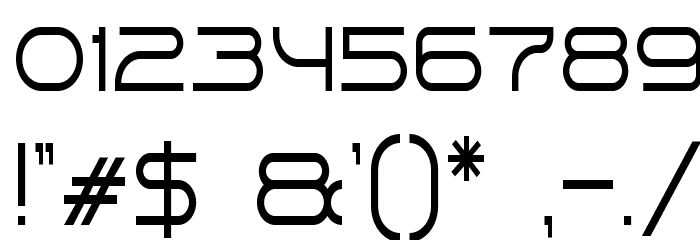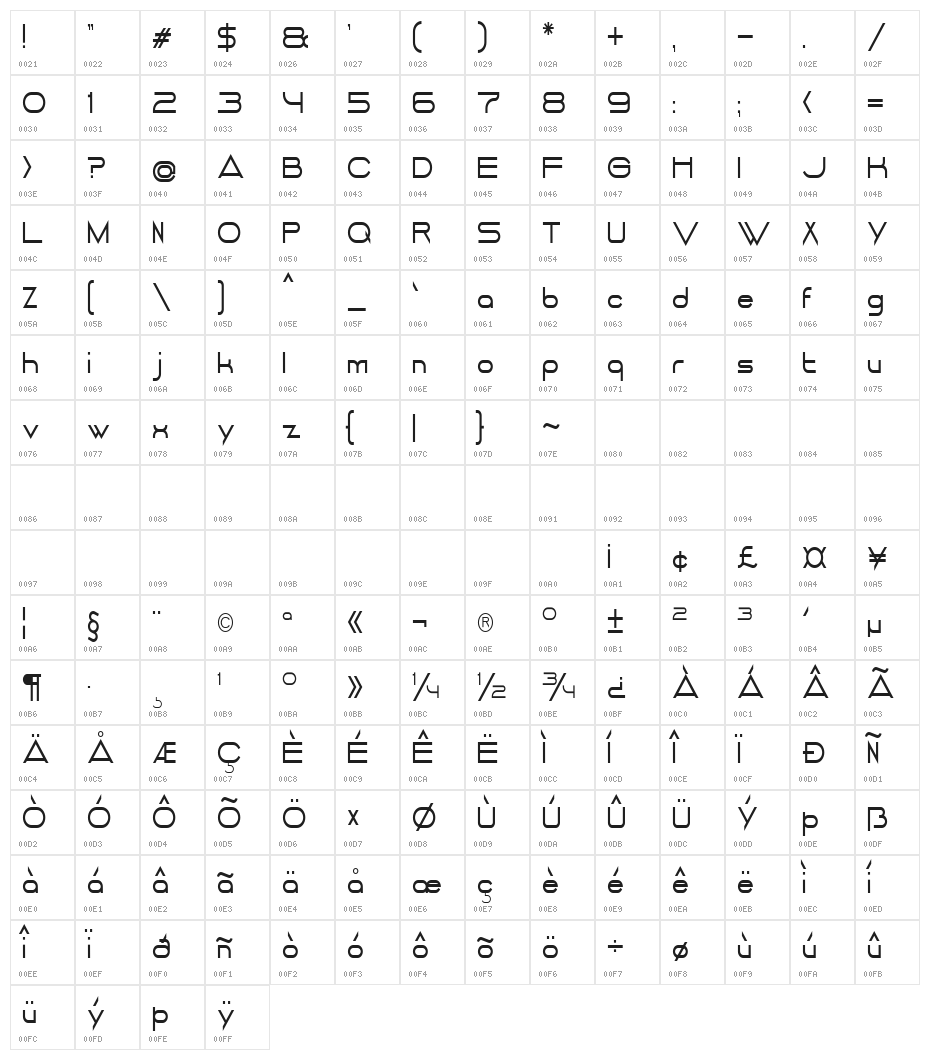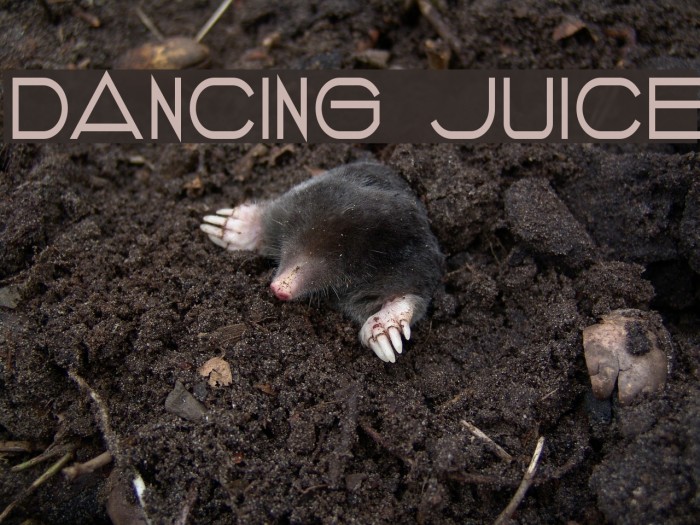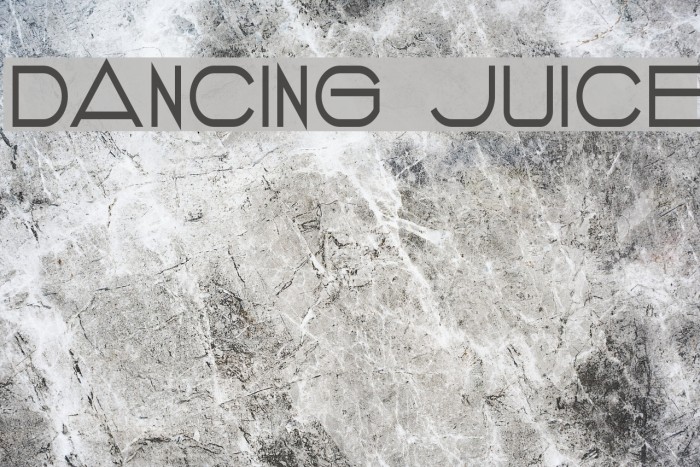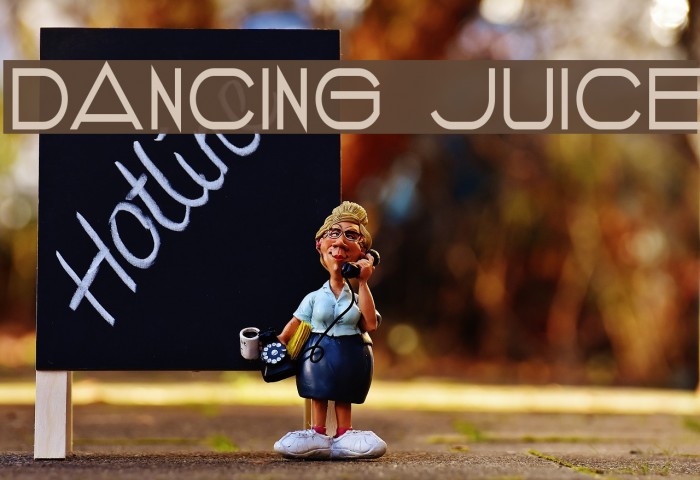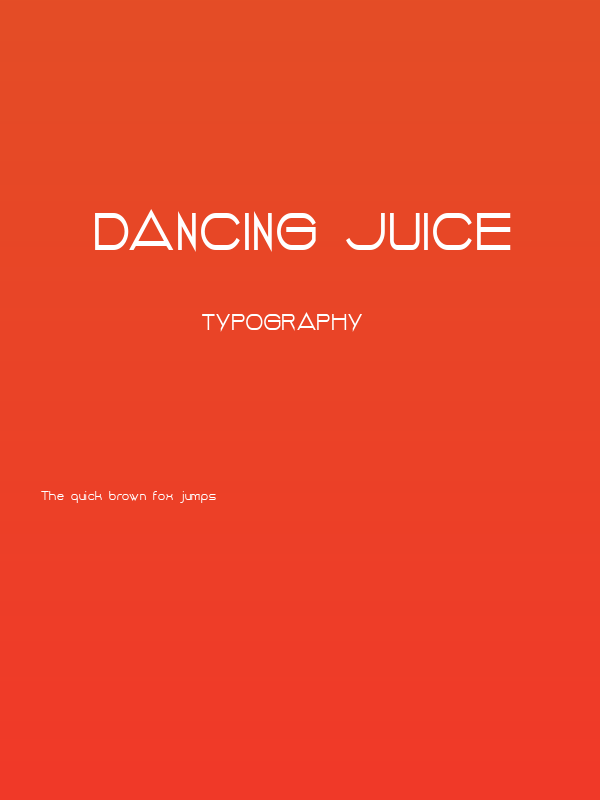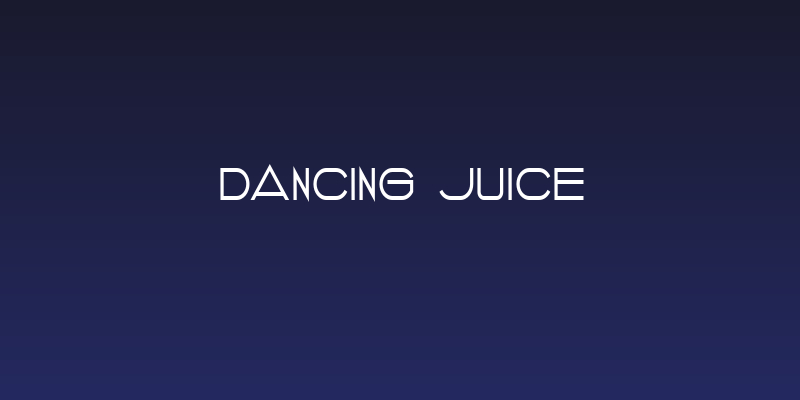
DANCING JUICE Font
DANCING JUICE Description
This font features a modern and geometric design with clean, straight lines and a minimalistic aesthetic. The uppercase letters are bold and angular, creating a strong visual impact. The lowercase letters maintain a consistent style, with rounded edges that soften the overall look. Numbers and special characters are designed to match the geometric theme, ensuring uniformity across all characters. The font's structure is highly legible, making it suitable for various design applications where clarity and style are essential.
| Use Case | Headlines, Logos, Digital Interfaces |
| Proposed Projects | Ideal for branding, advertising, digital interfaces, and modern print media. |